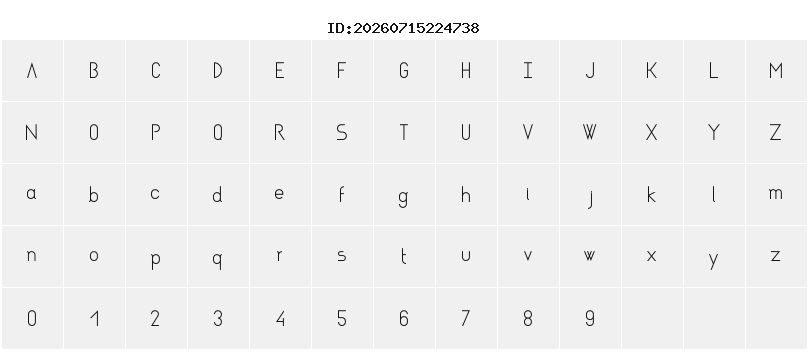
• Font Name: Asgalt
About Asgalt.ttf
Asgalt.ttf is a modern, elegant sans-serif font designed for ultimate readability and visual harmony. Perfect for branding, headlines, web design, and print materials.